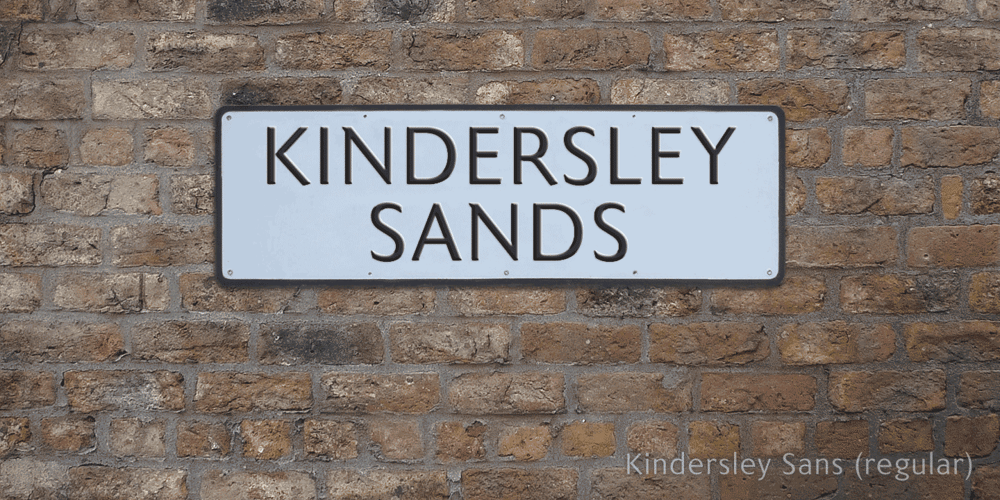
Kindersley Sans
Kindersley Sans font
Kindersley Sans Font Family was designed by Keith Bates and published by K-Type. Kindersley Sans contains 6 styles and family package options. Many street nameplates in Britain use versions of Kindersley serif capitals designed by David Kindersley in the 1950s. K-Type Kindersley Sans is an unfussy alternative to the signage stalwart, perfectly suited to newer environments and more contemporary tastes. Kindersley Sans is a humanist sans-serif that conserves the Gill-inspired character and some of the calligraphic qualities of Kindersley’s lettering, it retains the Roman proportions and its Britishness, but traditional prettiness and intricacy are discarded in favour of a clean modernity. For purposes where Transport (MOT) is considered too formal and Kindersley too old-fashioned, Kindersley Sans offers an open and amiable up-to-date alternative. The typeface is comfortably spaced and carefully kerned to deliver beautiful results with ease, and although designed with nameplates in mind, it excels as an all-purpose text face in print and on screen. The tail of the uppercase Q has minimal descent to avoid constriction. Kindersley Sans includes a lowercase designed for signage with short descenders to prevent unsightly congestion. A generous x-height assists legibility, and characters are designed for easy reading and distinctiveness. The curved foot of the lowercase L distinguishes it from the uppercase i. The six fonts contain a full complement of Latin Extended-A characters, Welsh diacritics and Irish dotted consonants, so European language nameplates need not be a source of frustration. The ascent and descent of accented characters has been kept to an acceptable minimum.